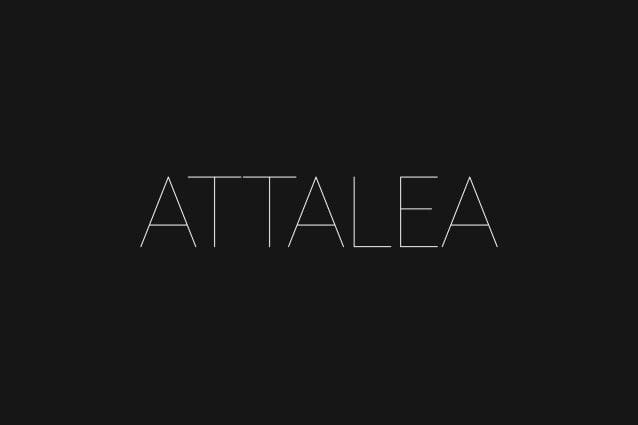
Attalea Sans Font
Attalea Sans Font a bold statement with our latest sans-serif font. With its clean lines and modern appeal, this font is sure to turn heads and leave a lasting impression. Perfect for headlines, logos, and any design that demands attention. It is both functional and stylish, making it a versatile choice for a wide range of design projects.